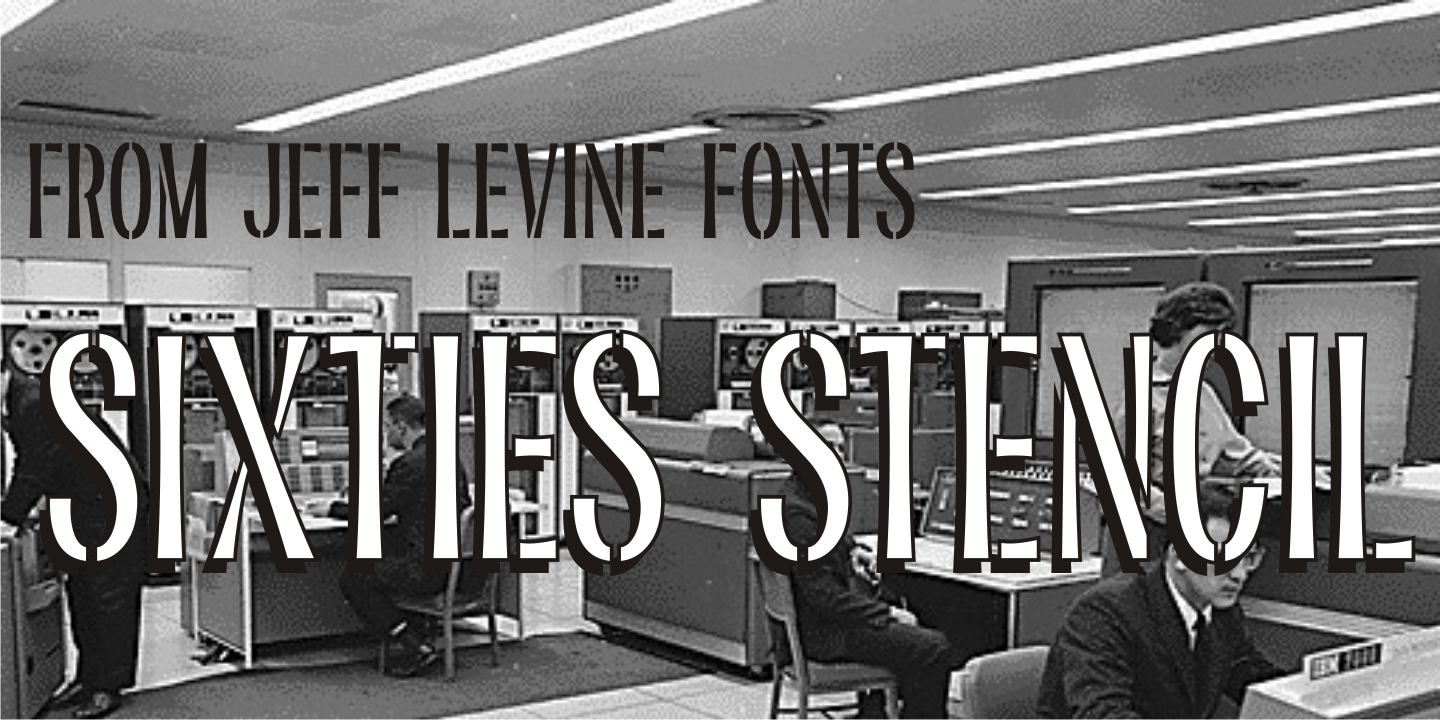
Sixties Stencil
Probably the one of the most unusual applications of a stencil took place in 1964 when Union Carbide [then-owner of the still-new line of 'Glad' brand plastic wrap and storage bags] sponsored a $100,000 contest to match up a stencil of their logo in order to win a prize.
The magazine ad told of how one thousand lucky participants would win $100 by simply taking a die-cut stencil of the brand name to the store and overlaying it on the logo printed on the food wrap box to see if it aligned perfectly.
The hand-lettered title proclaiming 'match the stencil and win' was done in a casual sans design and reflected the cheerfulness of many typestyles found in ads during the late 50s and early 60s.